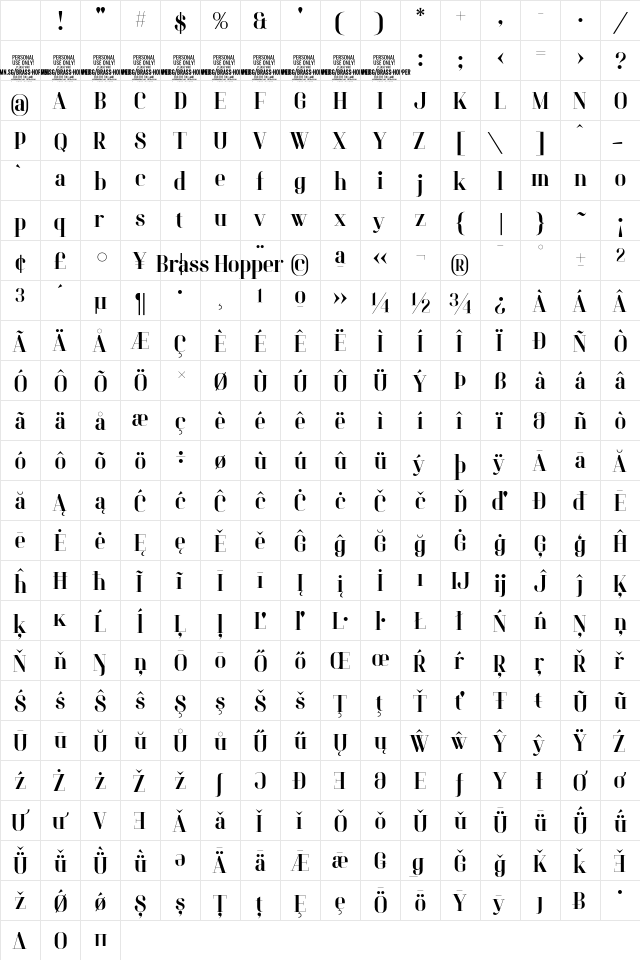
Complete Brass Hopper Head PERSONAL Regular glyph index. Displaying only characters natively supported by Brass Hopper Head PERSONAL Regular font.
Brass Hopper Head PERSONAL is a composed and adaptable typeface that performs quietly and consistently across a wide range of design contexts.